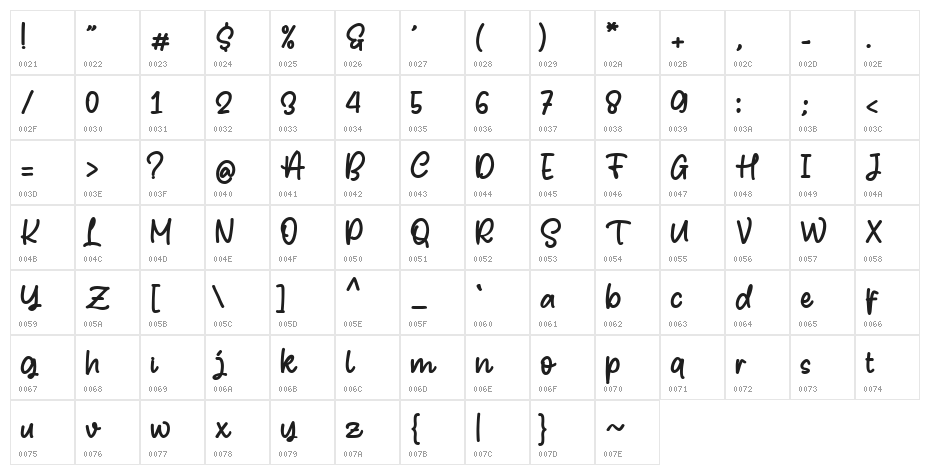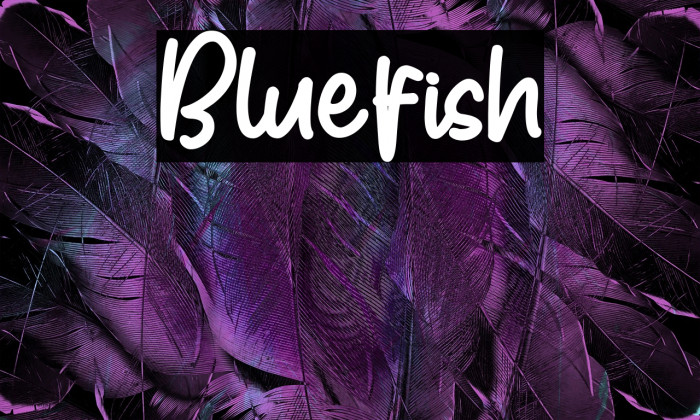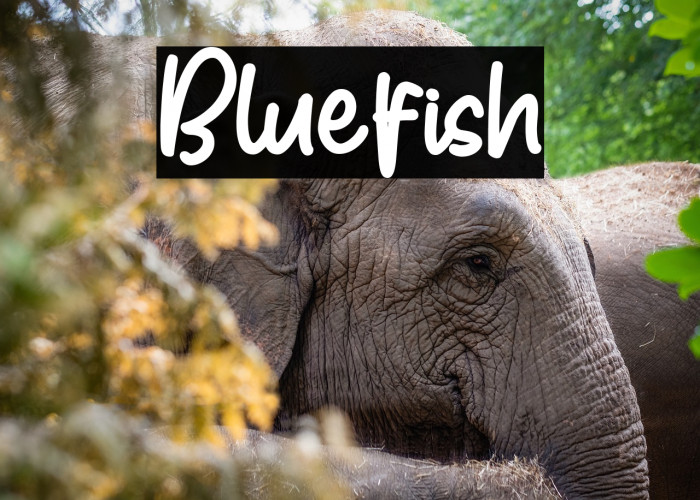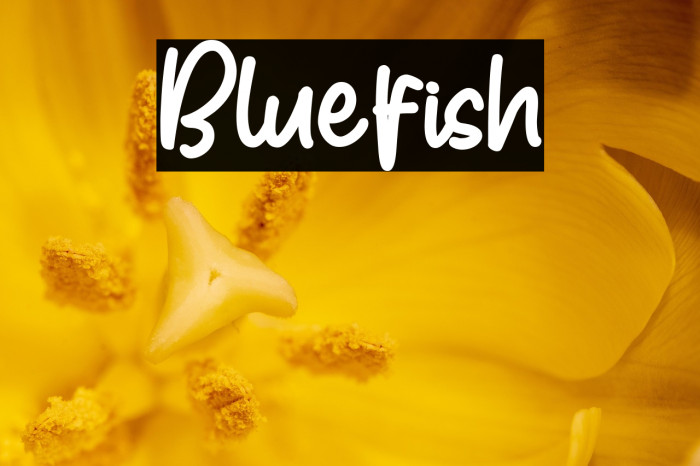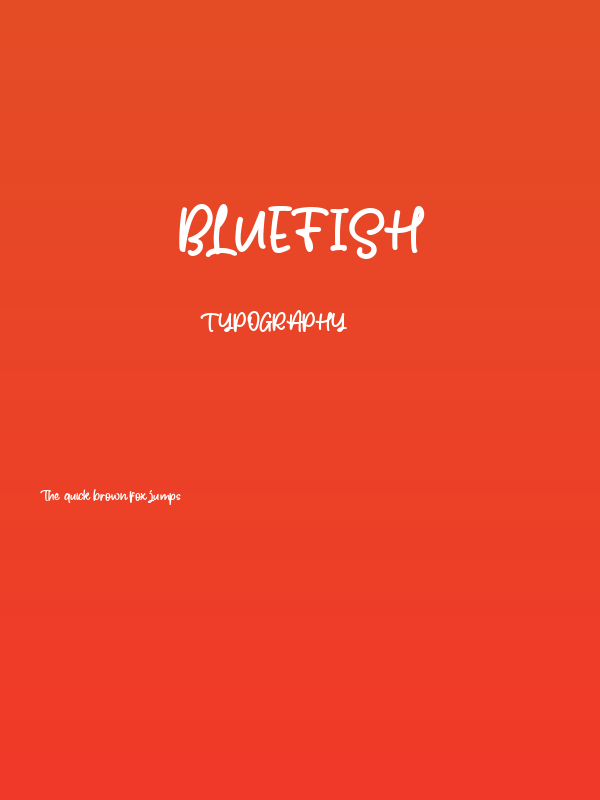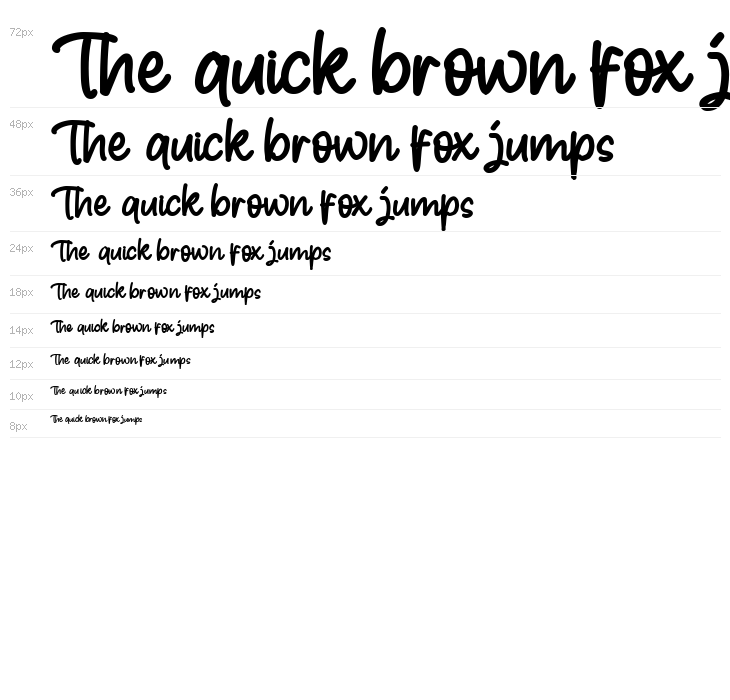
Bluefish Font
Bluefish Description
A playful and casual handwritten font with a bold and smooth appearance, featuring rounded edges and a friendly style.
| Overall Style | Casual and friendly |
| Use Case | Headlines, Logos, Informal text |
| Proposed Projects | Greeting cards, invitations, playful branding. |